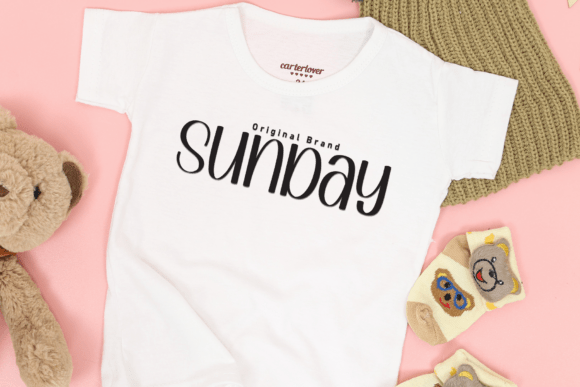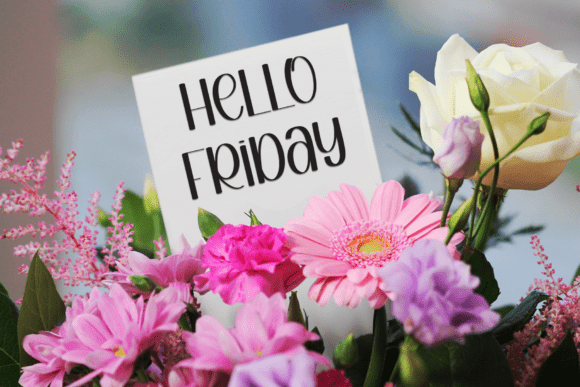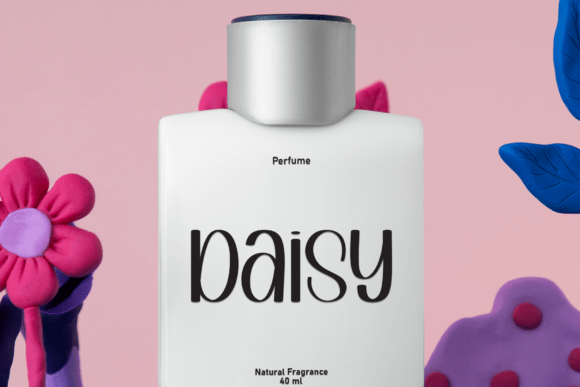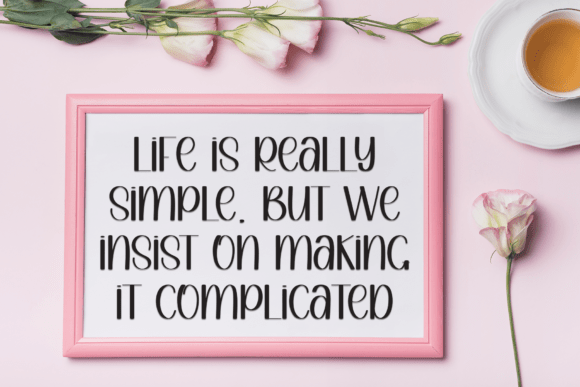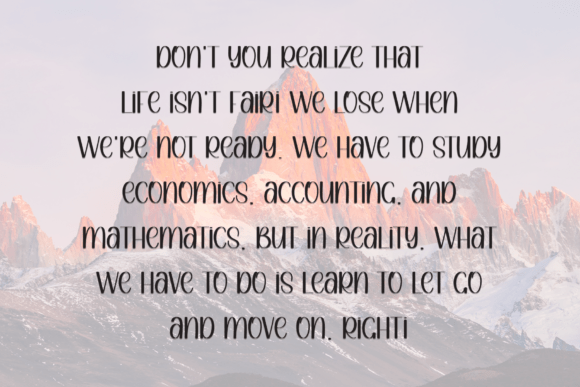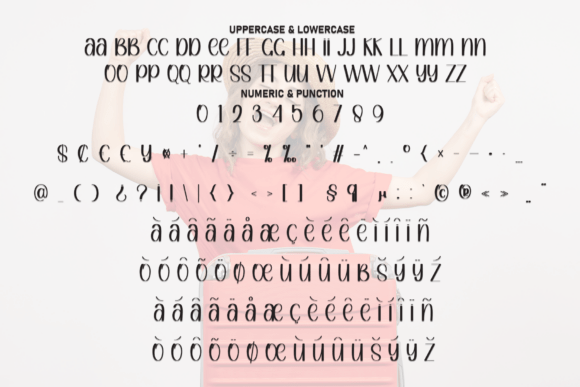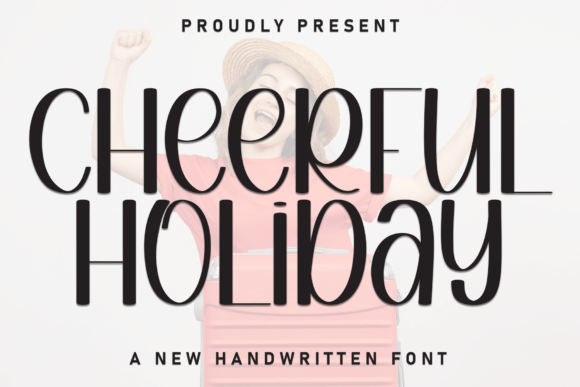
Introducing the Cheerful Holiday Font: A Charmingly Captivating Typeface for Joyous Celebrations
Are you searching for a font that embodies the warmth and playfulness of the holiday season? Look no further than the Cheerful Holiday Font, a hand-drawn display typeface that is sure to captivate your audience with its raw charm and exuberant personality. This delightful font is perfect for designers and crafters seeking to add a touch of elegance and joy to their wedding invitations, greeting cards, and other festive designs.
The Perfect Blend of Elegance and Playfulness
The Cheerful Holiday Font boasts a unique blend of sophistication and playfulness, making it an ideal choice for a wide range of design projects. Its warm and welcoming nature enhances the elegance of wedding invitations, while its exuberant personality brings a spark of joy to greeting cards and other celebratory designs. Whether you’re creating a formal wedding invitation or a casual holiday greeting card, this font is sure to establish an exquisite harmony of friendship and joy.
What Makes the Cheerful Holiday Font So Special?
So, what sets the Cheerful Holiday Font apart from other typefaces? Here are just a few of its standout features:
- Hand-drawn with love: Each letter has been carefully crafted by hand, giving the font a unique and personal touch.
- Raw charm and playfulness: The font’s playful personality shines through in its irregularities and quirks, making it perfect for designs that require a touch of whimsy.
- Warm and welcoming: The Cheerful Holiday Font has a cozy, inviting feel that’s sure to make your designs feel more approachable and friendly.
- Exuberant and elegant: This font strikes the perfect balance between sophistication and playfulness, making it suitable for a wide range of design projects.
How to Use the Cheerful Holiday Font in Your Designs
The Cheerful Holiday Font is incredibly versatile and can be used in a variety of design projects, including:
- Wedding invitations: Add a touch of elegance and sophistication to your wedding invitations with this beautiful font.
- Greeting cards: Bring a spark of joy to your holiday greeting cards with the Cheerful Holiday Font’s playful personality.
- Party invitations: Create eye-catching party invitations that are sure to get your guests excited with this fun and festive font.
- Social media graphics: Add a personal touch to your social media graphics with the Cheerful Holiday Font’s unique and hand-drawn style.
Tips for Getting the Most Out of the Cheerful Holiday Font
To make the most of the Cheerful Holiday Font, here are a few design tips to keep in mind:
- Experiment with colors: The Cheerful Holiday Font looks great in a variety of colors, so don’t be afraid to get creative and try out different color combinations.
- Mix and match: Combine the Cheerful Holiday Font with other fonts to create a unique and eye-catching design.
- Play with textures: Add depth and interest to your designs by incorporating textures and patterns into your work.